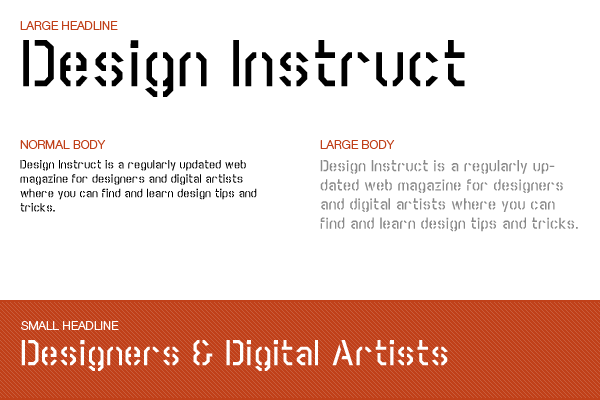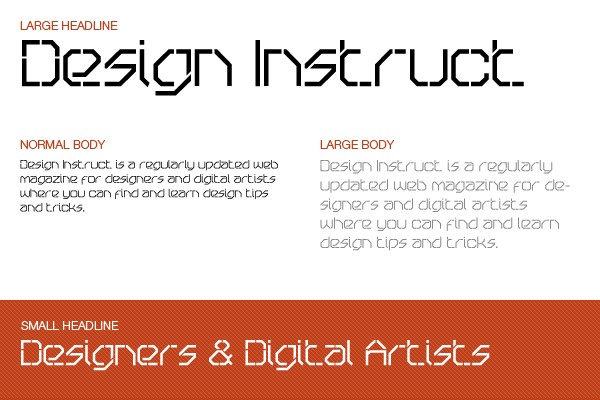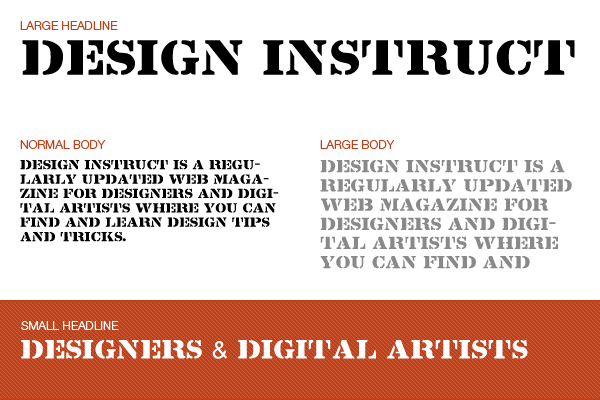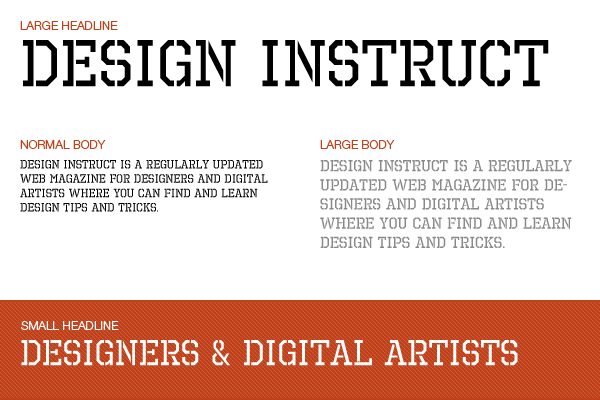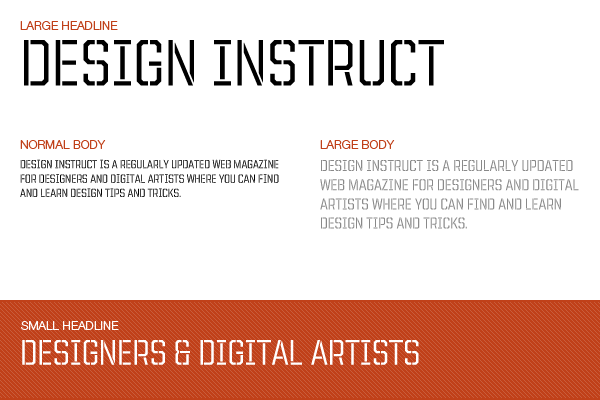
Font Collection: 10 Stylish Free Stencil Fonts
1. Octin Prison Regular
This free stencil font is by Canadian font designer Ray Larabie, the creator of the free Larabie Fonts set.
2. UnitedStencil
UnitedStencil is a free offering from the House Industries type foundry. The font is thin, stylish, and highly functional.
3. Scriber Bold Stencil
This free stencil font has straight edges inspired by contemporary architectural and computer aided designs.
4. OricNeo Stencil
Influenced by the movie series, The Matrix, OricNeo Stencil is a free font made by The Northern Block.
5. Lintsec
Lintsec is a popular free stencil font by David Rakowski, a successful musician who was nominated twice for the Pulitzer Prize.
6. Major Snafu
This free stencil font by Vic Fieger is in all-caps and has strong characteristics, both common features of stenciled lettering.
7. Octin Stencil Regular
Octin Stencil features powerful and commanding characteristics that are perfect for athletic, construction, and military themes.
8. Sylar Stencil
By The Northern Block font foundry, the free Stylar Stencil font has a unique and modern look-and-feel — a font that will surely garner attention.
9. Boston Traffic
Boston Traffic is a free stencil font that moderately mimics the often rough and irregular results of spray painted stenciled letterings.
10. WC Wunderbach Rounded Bta
This free stencil font has interesting rounded corners, giving it a somewhat elegant look. Be sure to also check out the non-rounded version, WC Wunderbach Bta.